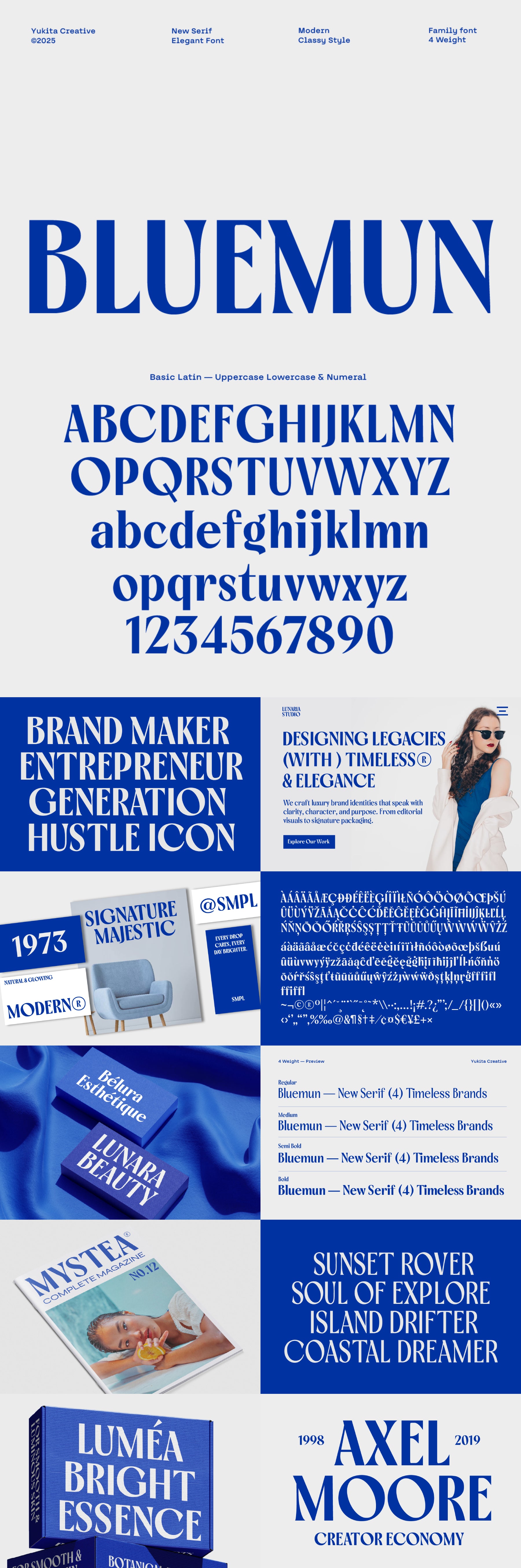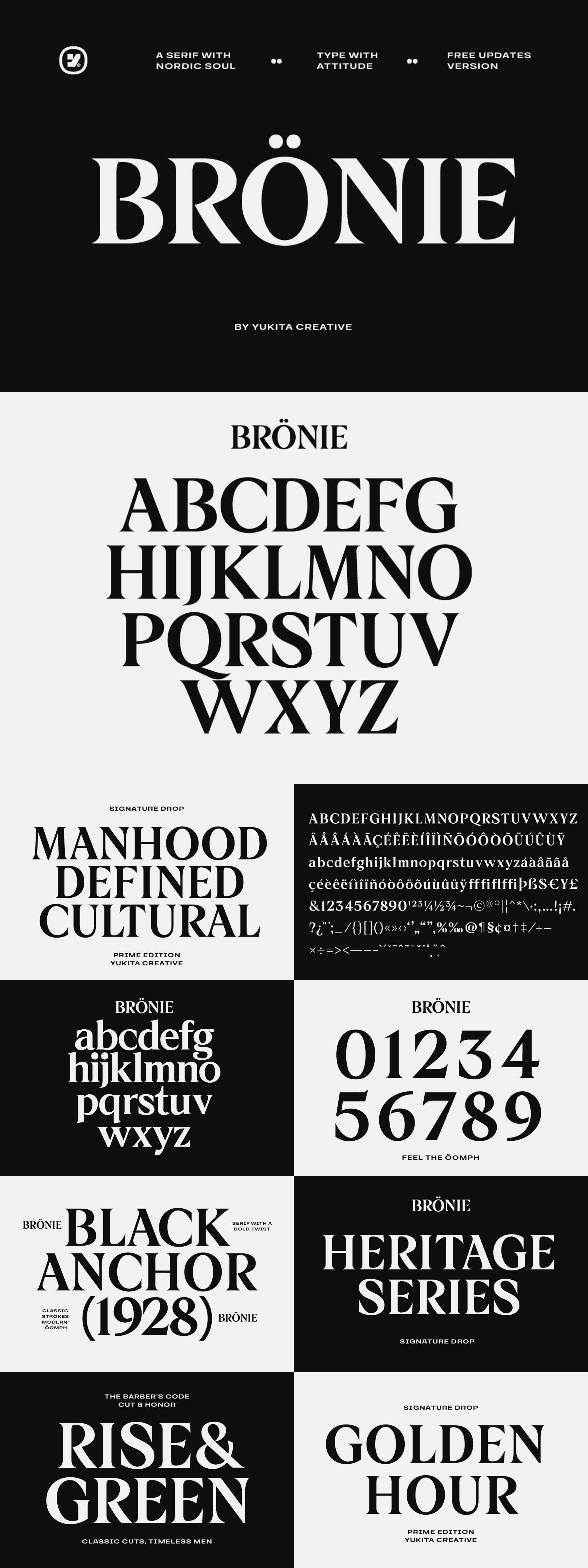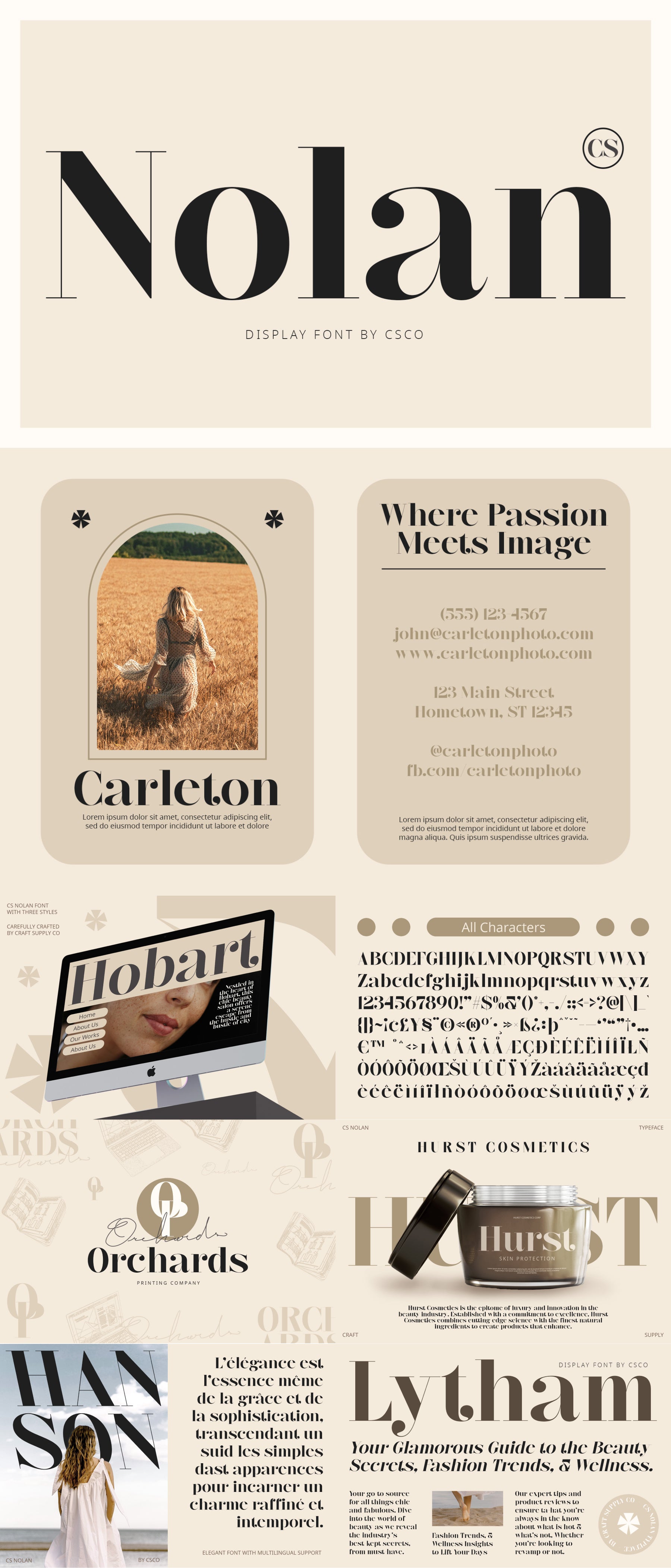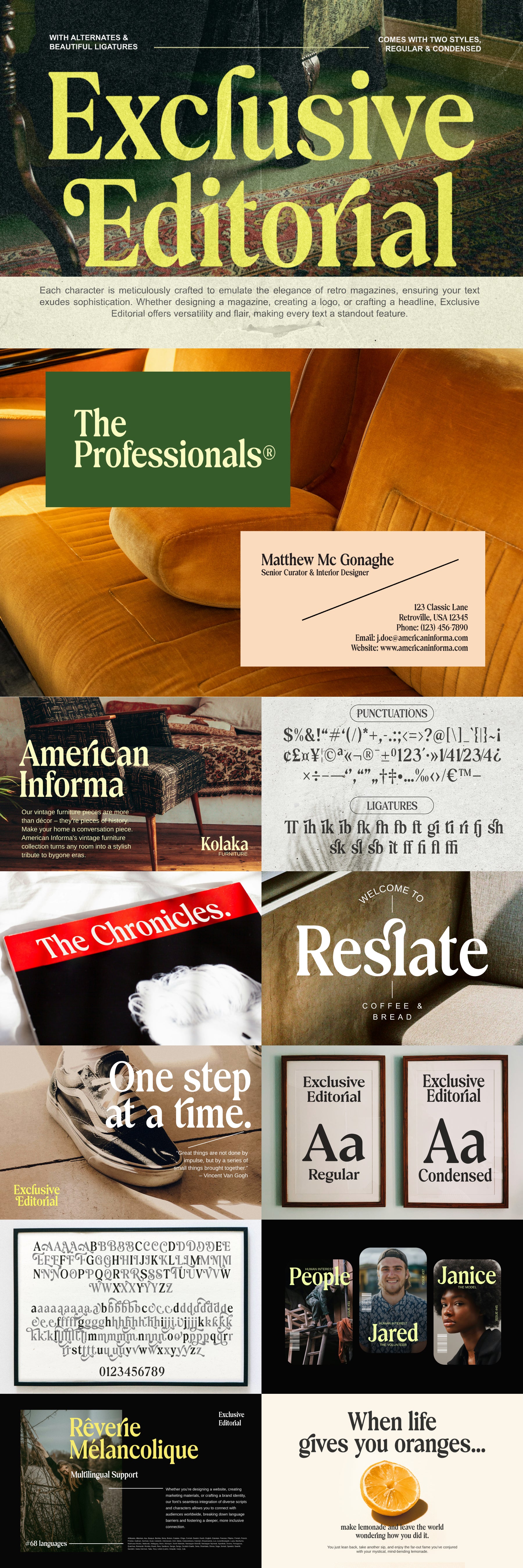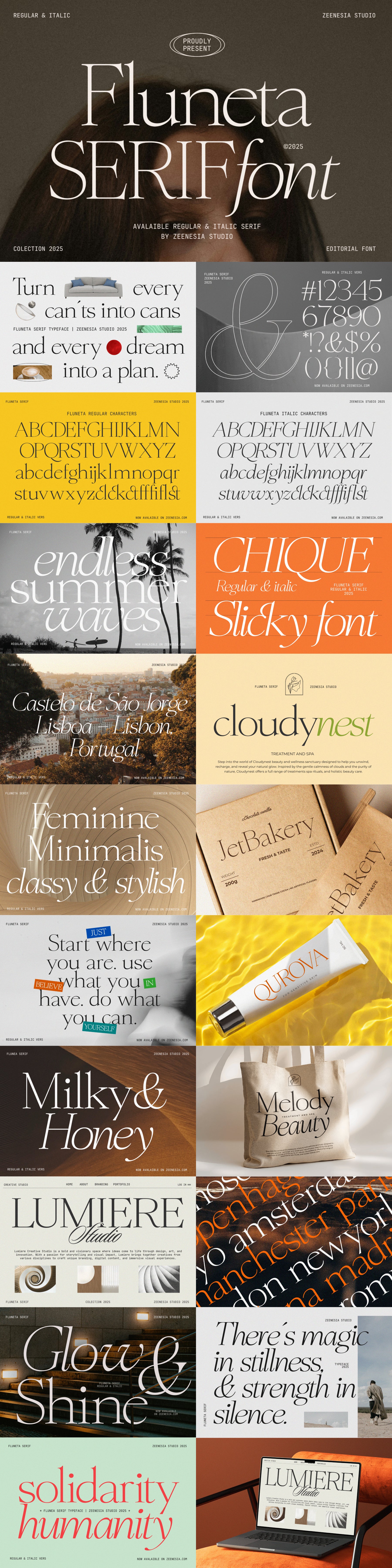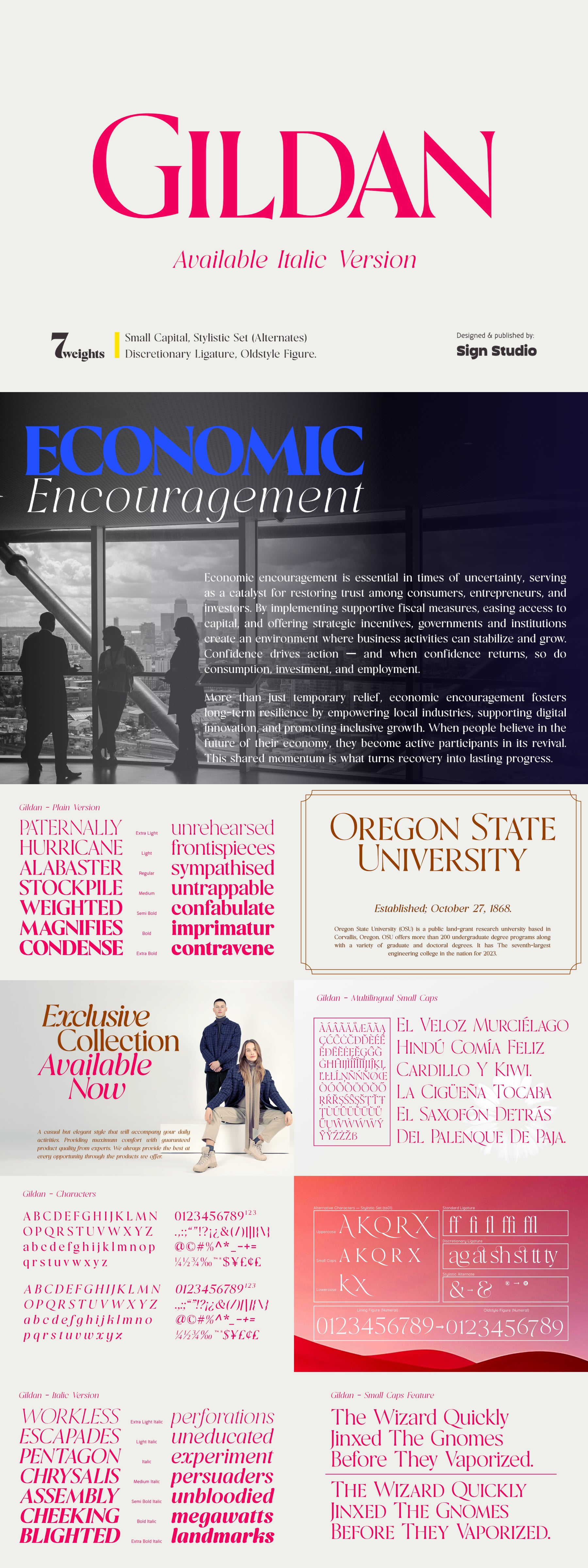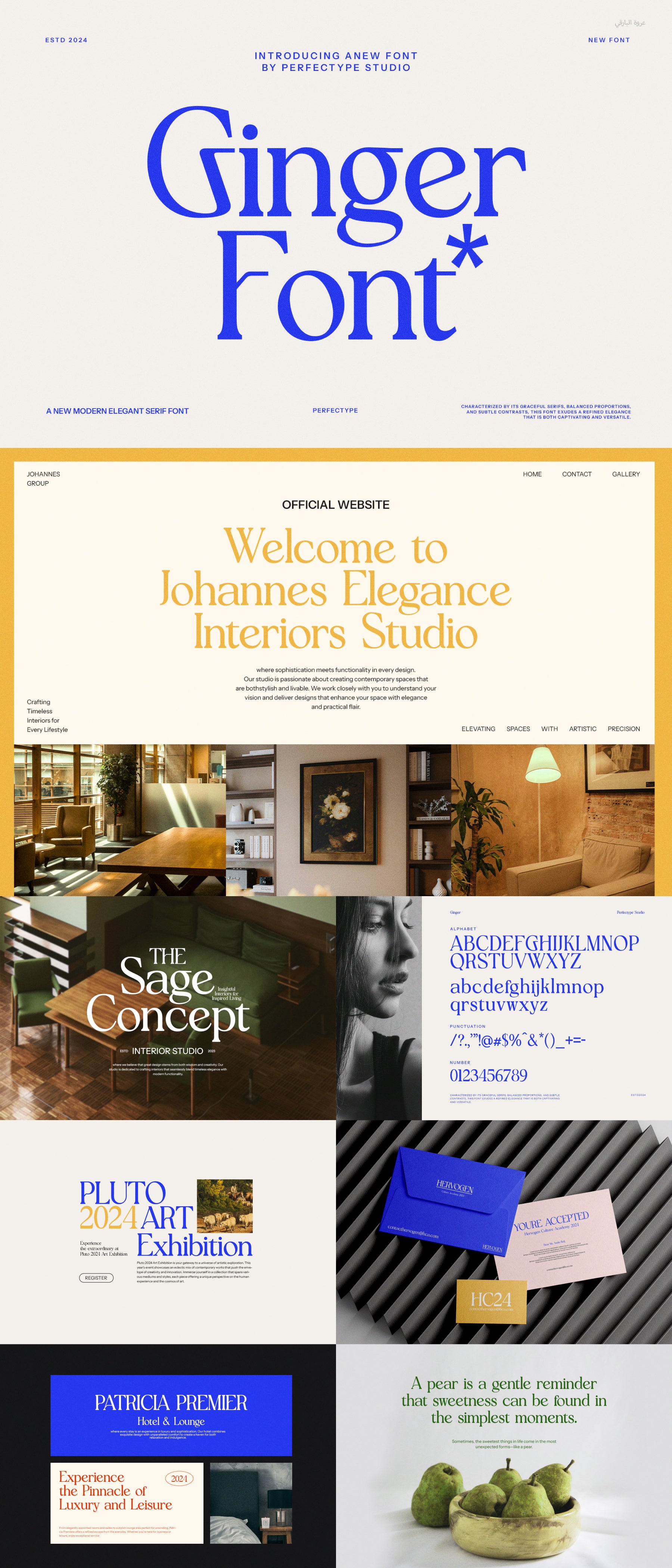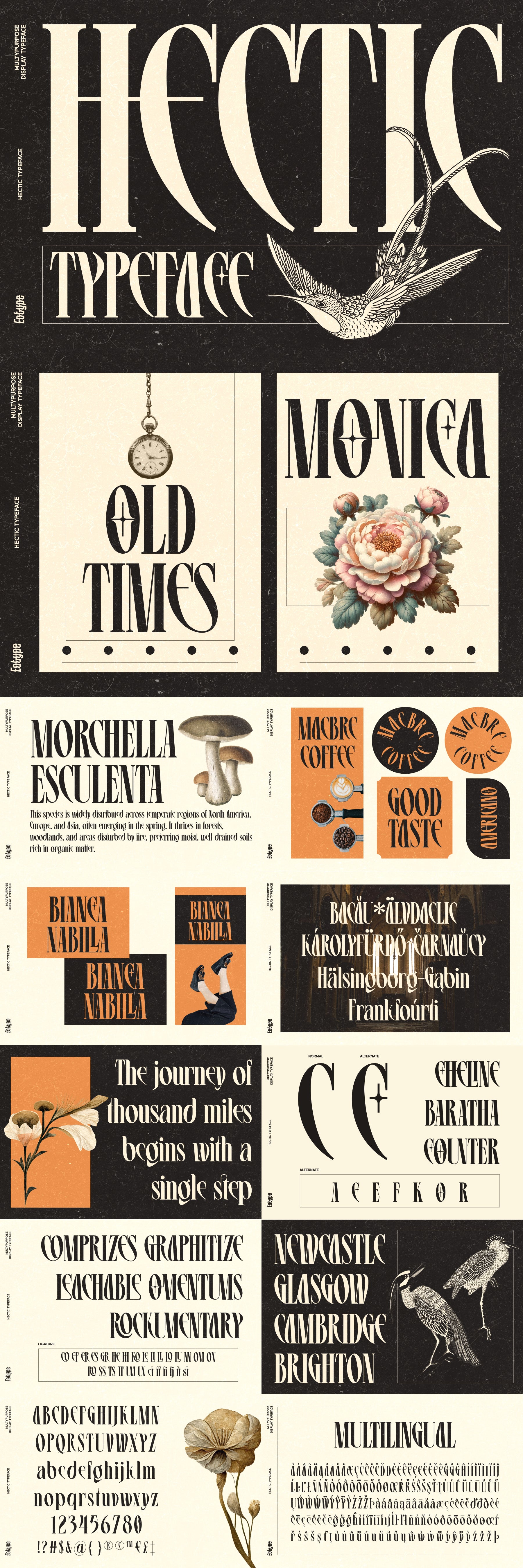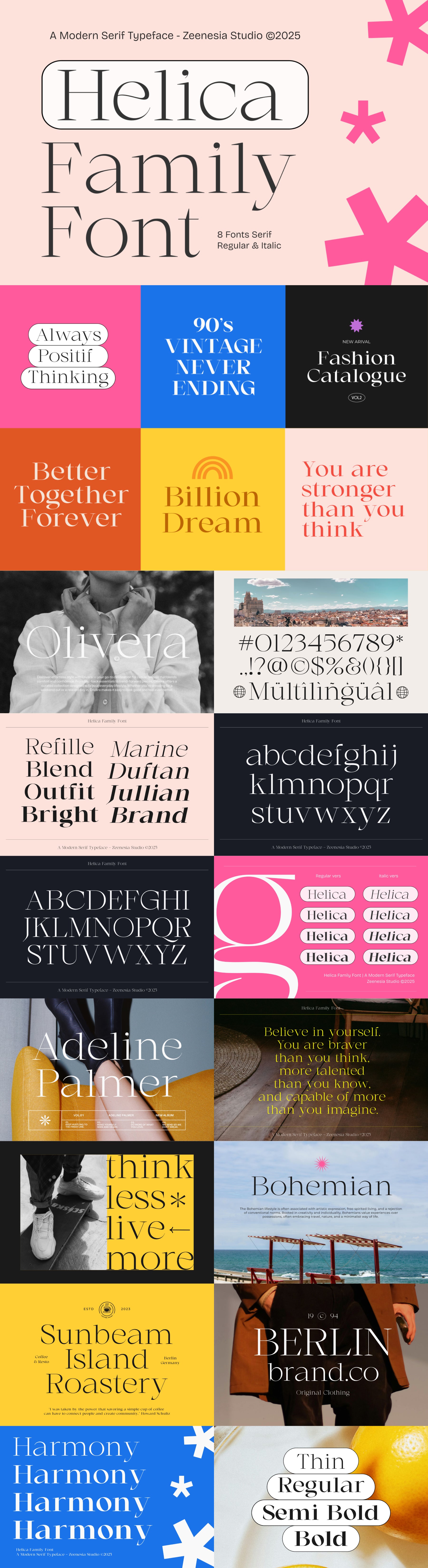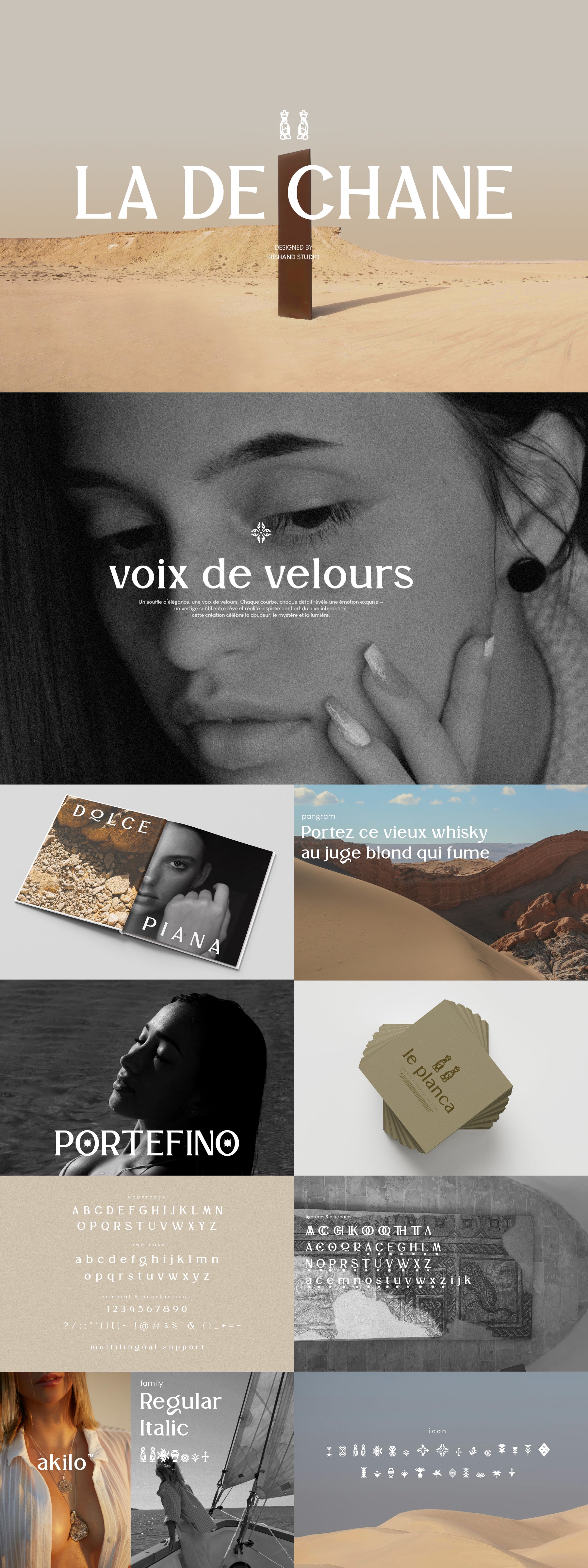
The Striking Serif Font Collection
The Striking Serif Font Collection features 24 premium products and a total of 96 fonts, all curated to help you create confident, stylish designs with a bold typographic impact.
This bundle is packed with elegant serif typefaces and full font families that bring polish and personality to branding, packaging, editorial layouts, and more.
Whether you're after high-contrast classics or modern serifs with flair, you'll find a wide range of styles to work with.